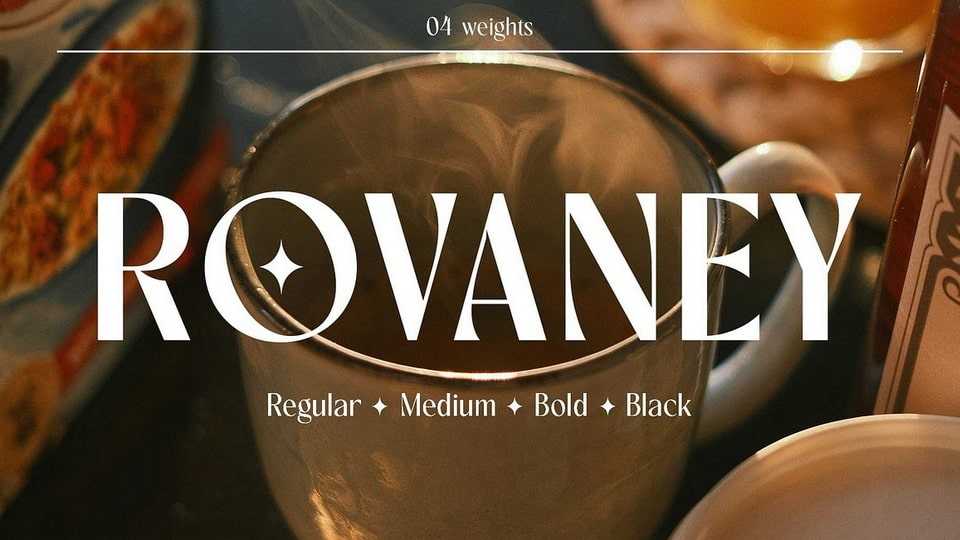
Download Rovaney font, a modern display typeface that features a stylish design with elegant curves, serifs, and strokes, making it versatile for various designs.